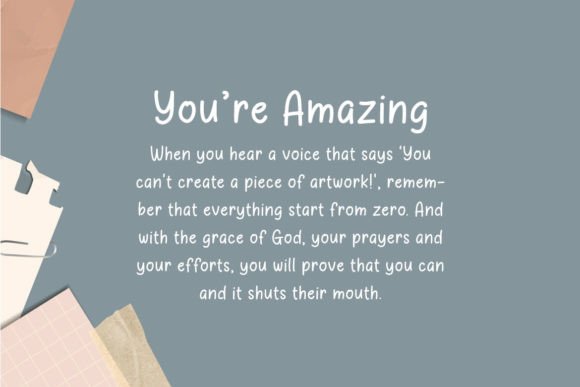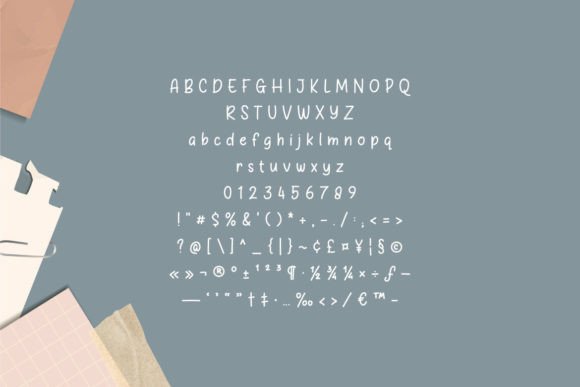
The Perfect Blend of Creativity and Style: Beny Gold Font
Have you ever been brainstorming ideas for a new comic book or social media campaign, only to be stuck on the perfect font to capture the essence of your project? We’ve all been there. Sometimes, all it takes is one glance at the right font to spark inspiration. For designers and creatives, finding the perfect font can be a game-changer.
Enter Beny Gold Font, a beautiful, handwritten comic font designed to add a touch of elegance and whimsy to any project. Whether you’re creating a poster, flyer, or book title, Beny Gold Font is the perfect tool to bring your ideas to life. With its versatility and unique charm, it’s no wonder this font has become a favorite among designers.
As a valuable asset for any design project, Beny Gold Font offers endless possibilities for creative expression. From comic books to social media content, this font is sure to elevate your work and make it stand out from the crowd.
Beny Gold Font Key Features
- Unique Characteristics: The Beny Gold Font features a luxurious, elegant design with a warm golden tone, perfect for creating sophisticated and high-end visual identities.
Beny Gold Font Review
Overall, the Beny Gold font is a unique and stylish choice for designers looking to add a touch of luxury to their projects. ✨ The font’s elegant curves and sophisticated flair make it perfect for high-end branding, advertising, and editorial design.
- The font’s versatility in both print and digital formats, making it suitable for a wide range of applications.
- The font’s ability to evoke a sense of sophistication and elegance, making it ideal for luxury brands and high-end design projects.
- ⚠️ The font may not be suitable for use in body text, as its elegant curves can make it difficult to read at smaller sizes.
- ⚠️ Limited language support, which may restrict its use in international projects.
In conclusion, the Beny Gold font is a stylish and sophisticated choice for designers looking to add a touch of luxury to their projects. While it may have some limitations, its unique charm and high-quality files make it a valuable addition to any design toolkit.
Getting the Most Out of Beny Gold Font
To get the most out of Beny Gold Font, try the following tips:
1. Use Beny Gold Font in combination with other elegant fonts for a sophisticated look.
2. Experiment with different font sizes and styles to create visual interest.
3. Use Beny Gold Font for headings and titles to add a touch of luxury and sophistication.
Beny Gold Font is commonly used for:
1. Luxury branding and marketing materials.
2. High-end product packaging and labeling.
3. Elegant wedding invitations and stationery.